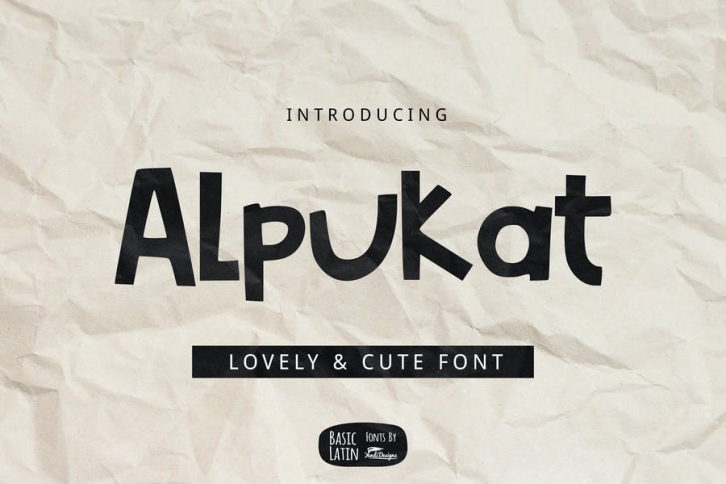
Alpukat Font
Alpukat Font is simple cute multipurpose handmade font, suitable for many project children book, quotes, logo , heading , title etc.
Basic Latin (Standard English character , number, symbol)